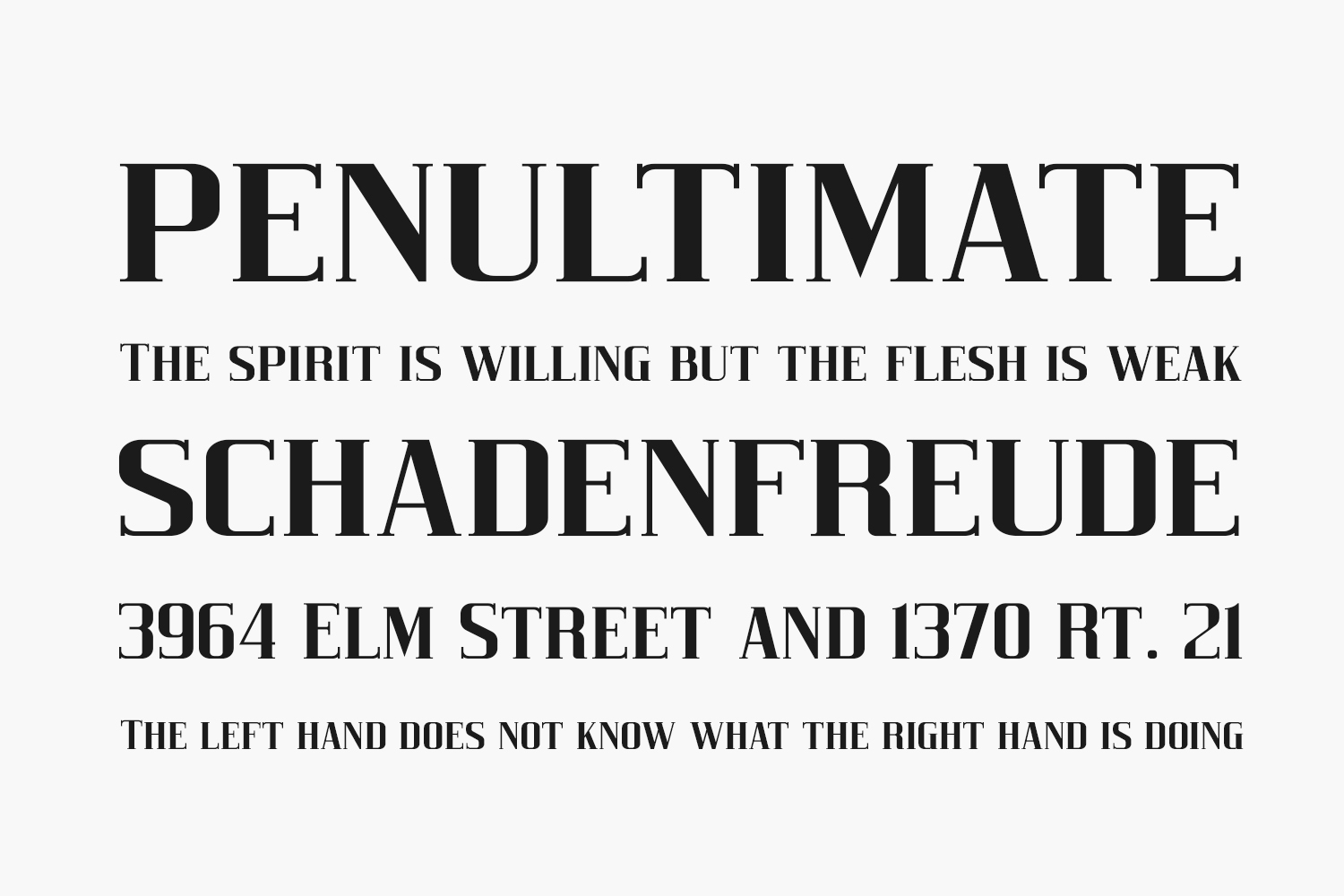
Welcome to the world of Heaven Mine Free Font, a timeless serif font that seamlessly blends unique style with a modern touch. Elevate your creative endeavors with this font, which is tailor-made for elegant and luxurious designs. Whether you’re crafting logos, designing book or movie titles, curating fashion brands, or working on magazines, clothes, lettering, and quotes, Heaven Mine is the ideal choice.
Its versatility knows no bounds, and the captivating results it produces will leave you astonished. Add the charm of Heaven Mine to any of your creative projects, and witness the magic unfold before your eyes. Get ready to make a lasting impression with this exquisite font. Heaven Mine Free Font is free for personal use only. Please purchase the full version for commercial use.